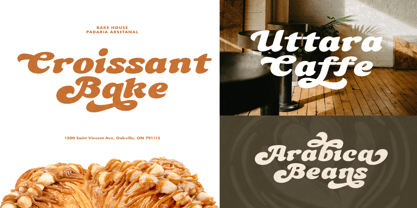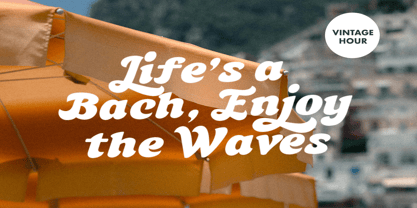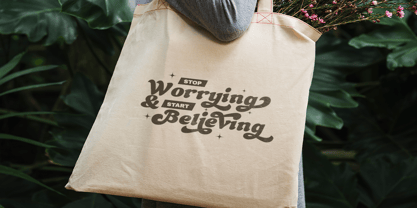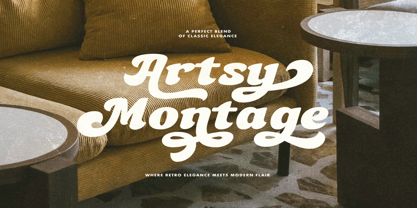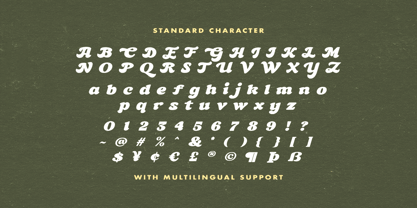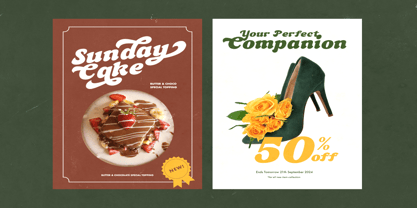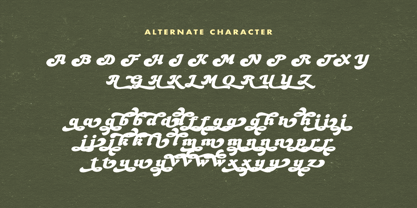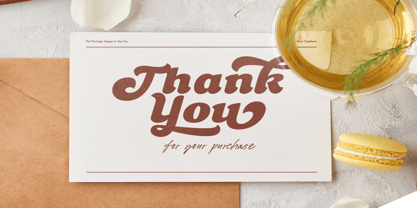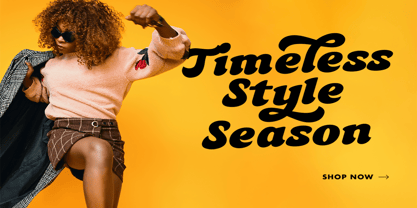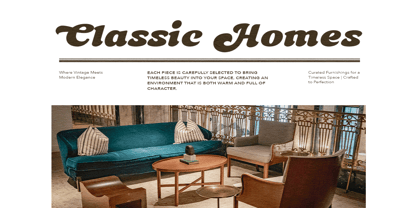
Artsy Montage
by Bale Type
The Artsy Montage Font Family was designed by Sarid Ezra, Dzikrul Aulia and published by Bale Type. Artsy Montage contains 1 styles.
Artsy Montage is a retro and hipster bold font. You can use this font for any purposes especially the project that required old and vintage looks such as poster, book cover, signage, quotes, and etc. With modern alternates, you can make your design more stunning and eye-catching. Artsy Montage also support multi language. Let this font make your next designs bolder and attractive!
Designers: Sarid Ezra, Dzikrul Aulia
Publisher: Bale Type
Foundry: Bale Type
Design Owner: Bale Type